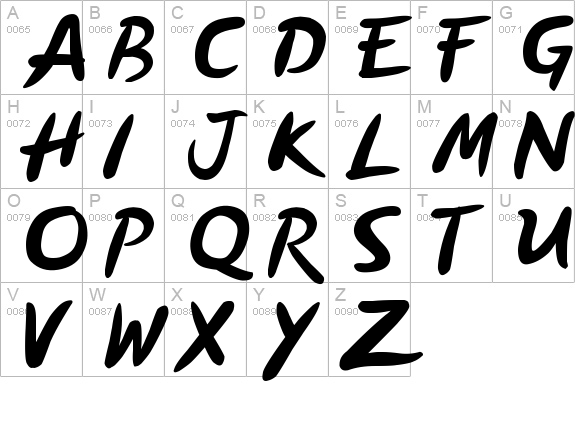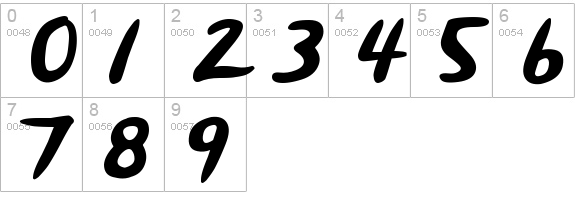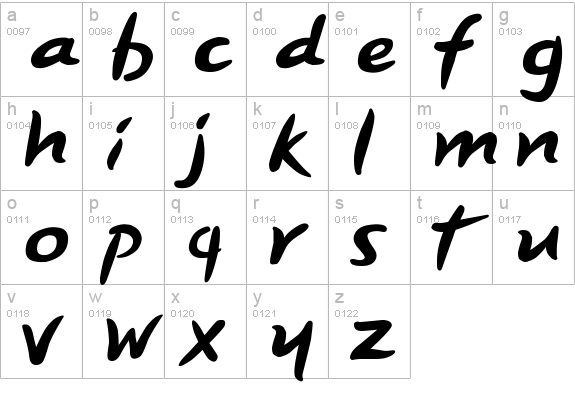
Introducing the delectable and mouthwatering Order Pizza font! This captivating and unique typeface is sure to satisfy all your typography cravings. Inspired by the art of handcrafted pizzas, this font brings a delicious blend of personality, creativity, and visual appeal to your design projects. Order Pizza font boasts a delightful combination of bold and playful letterforms, reminiscent of the cheesy and savory toppings that make pizza such a beloved culinary masterpiece. With its carefully crafted curves, sharp edges, and tasteful details, this font exudes a sense of excitement and enthusiasm, just like the anticipation of receiving a piping hot pizza straight from the oven. But what makes Order Pizza font truly special is that it comes with an irresistible offer - it's completely free! Yes, you heard that right. This delectable typeface is freely available to download at FontsMarket.com, making it accessible to both professional designers and pizza enthusiasts alike. Whether you're designing a menu for your favorite pizzeria, creating an eye-catching poster for a pizza-themed event, or simply adding a dash of flavor to your personal projects, Order Pizza font is the perfect ingredient to elevate your designs to new levels of visual delight. With its wide range of characters, including uppercase and lowercase letters, numbers, punctuation marks, and special symbols, Order Pizza font offers endless possibilities for creative experimentation. Its versatility allows you to use it in a variety of design contexts, from bold headlines and attention-grabbing titles to playful captions and engaging logos. So, go ahead and take a bite out of the tempting Order Pizza font. Let your creativity run wild as you savor the freedom of using this delightful typeface in your next design project. Download it for free at FontsMarket.com and embark on a flavorful typographic journey that will leave your audience hungry for more.